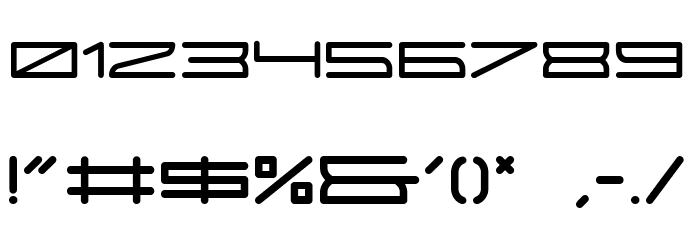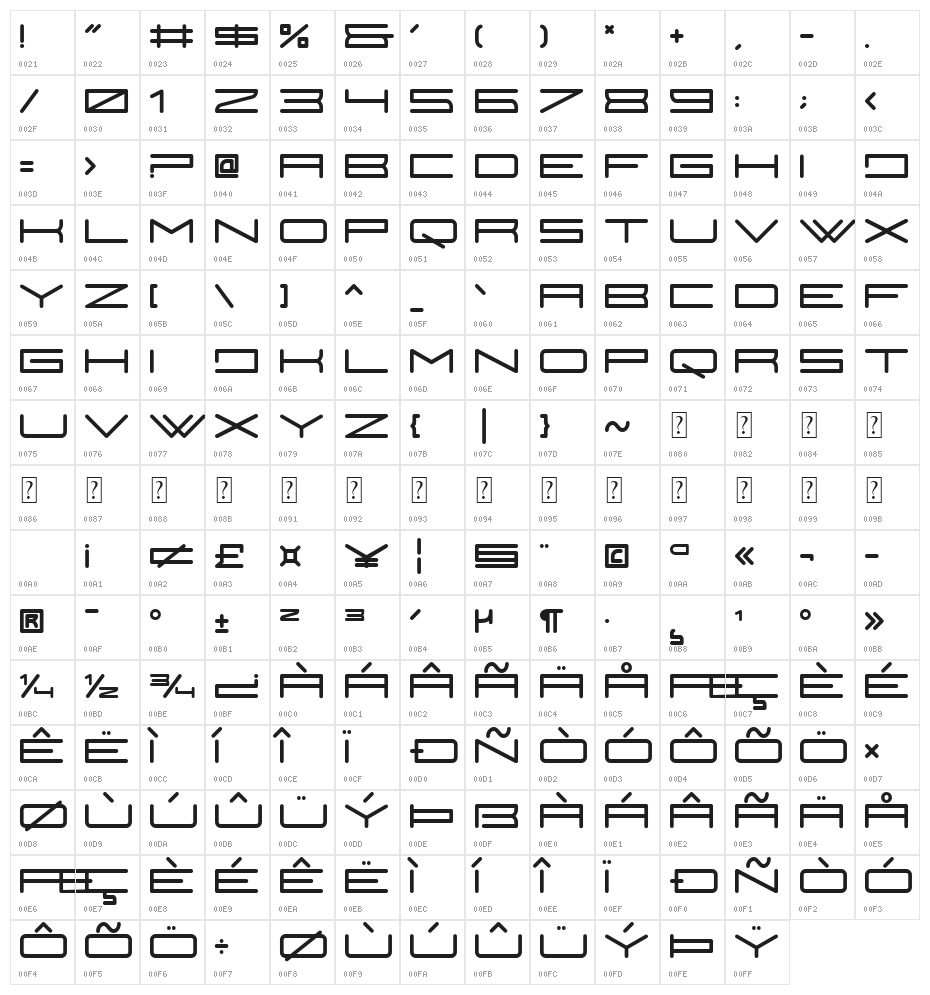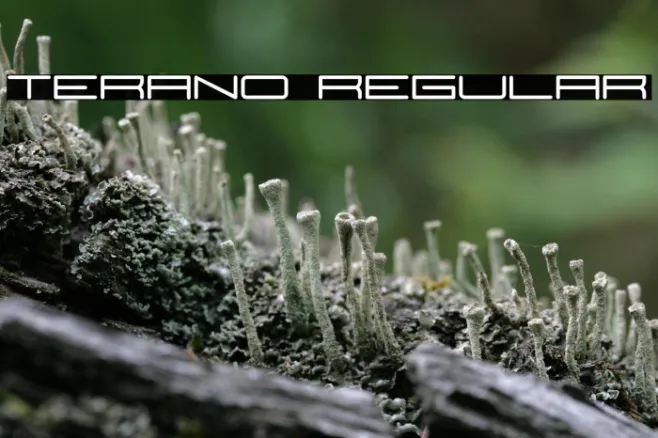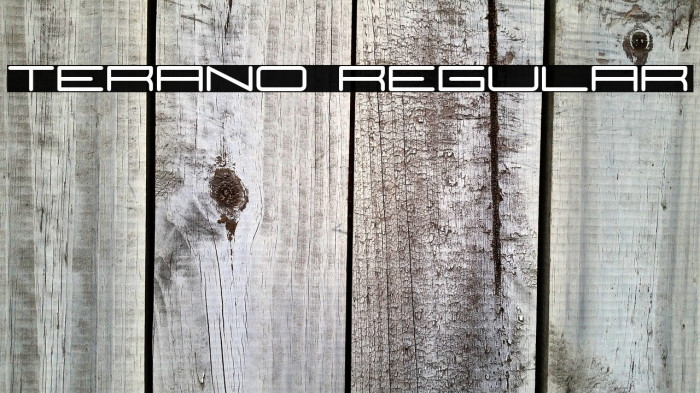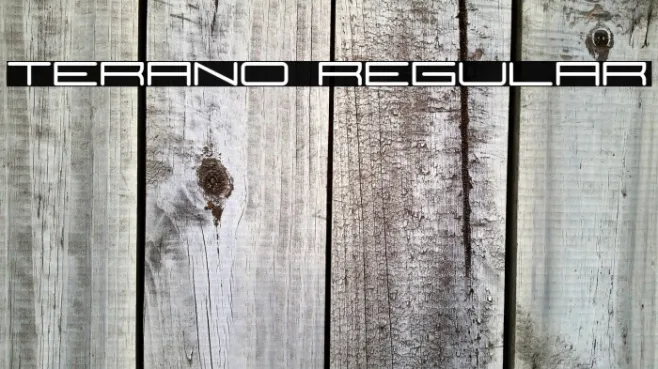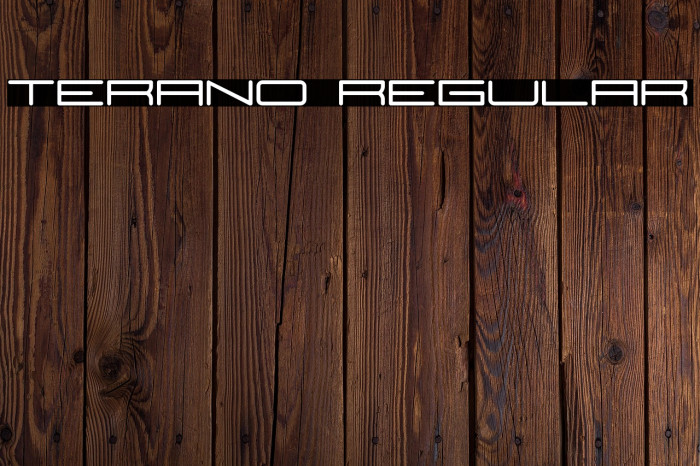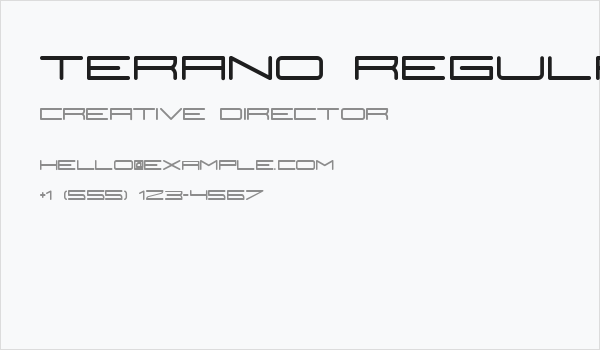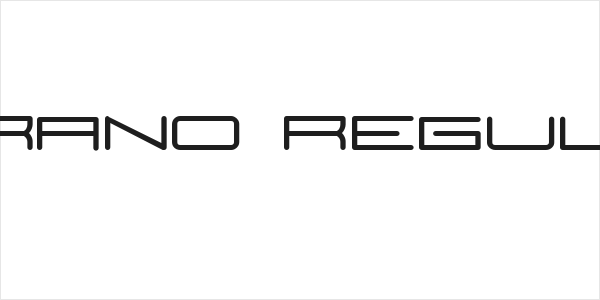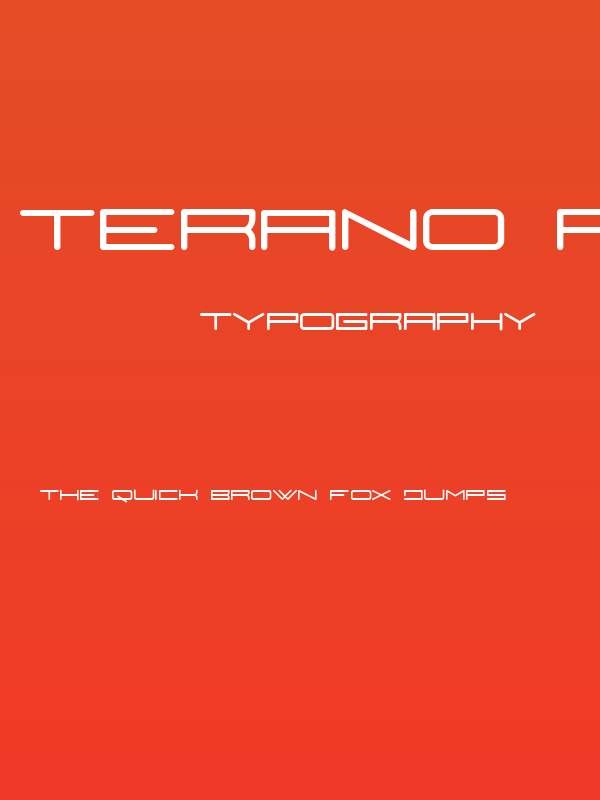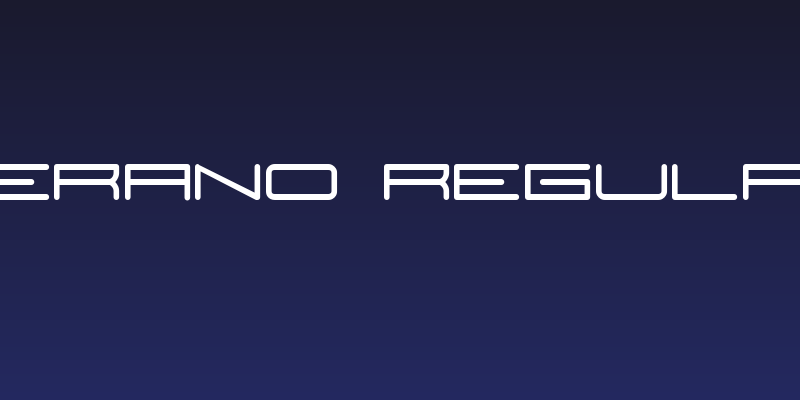
Terano Regular Font
Terano Regular Description
This font features a futuristic and geometric design, characterized by its clean lines and angular shapes. The uppercase and lowercase letters share a consistent structure, with a focus on symmetry and balance. The numerals are distinct and align well with the overall style, maintaining the geometric theme. Special characters are uniquely styled, adding to the font's modern aesthetic. The uniformity in stroke width gives it a sleek appearance, making it suitable for contemporary and tech-oriented projects.
| Overall Style | Futuristic, Geometric |
| Use Case | Logos, Headlines, Digital Interfaces |
| Proposed Projects | Ideal for technology branding, sci-fi themed designs, modern logos, and digital interfaces. |